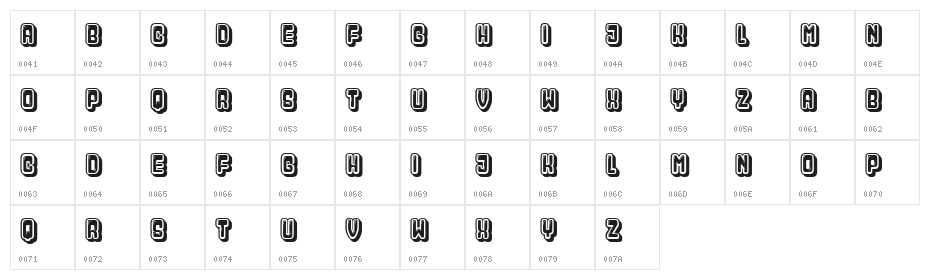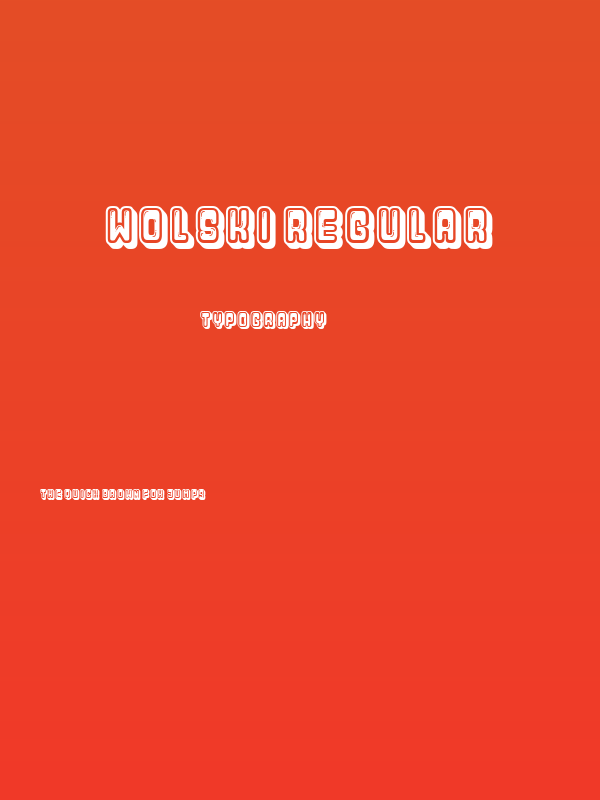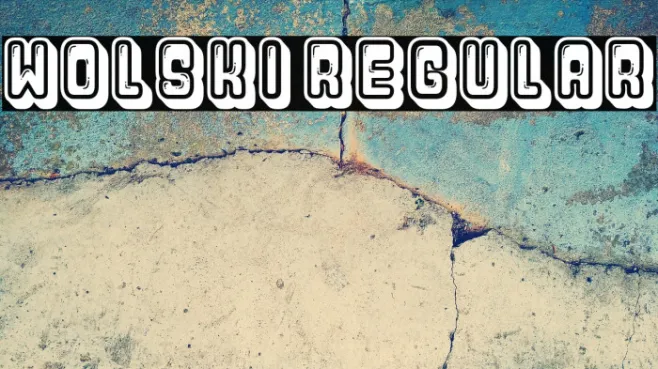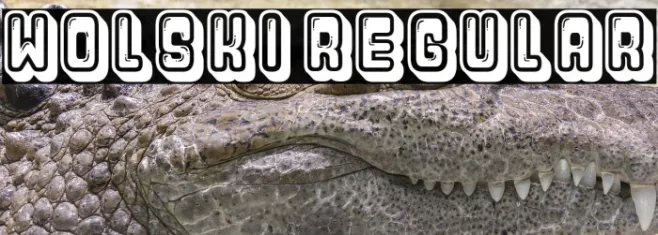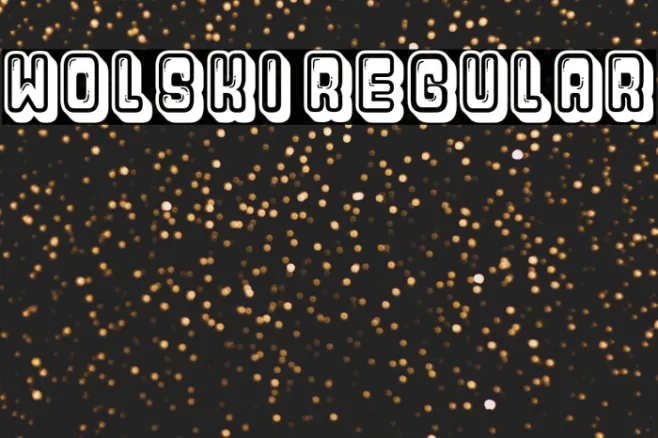
Wolski Regular Font
Wolski Regular Description
This font features a bold, decorative style with a strong outline and shadow effect, giving it a three-dimensional appearance. The characters are uppercase, with a playful and dynamic look, making them stand out. The design incorporates a mix of rounded and angular elements, adding to its unique and eye-catching aesthetic. The font's boldness and shadowing create a sense of depth, making it ideal for attention-grabbing designs. The spacing between characters is consistent, ensuring readability while maintaining its decorative appeal.
| Proposed Projects | Ideal for posters, headlines, logos, and any design requiring a bold, eye-catching font. |